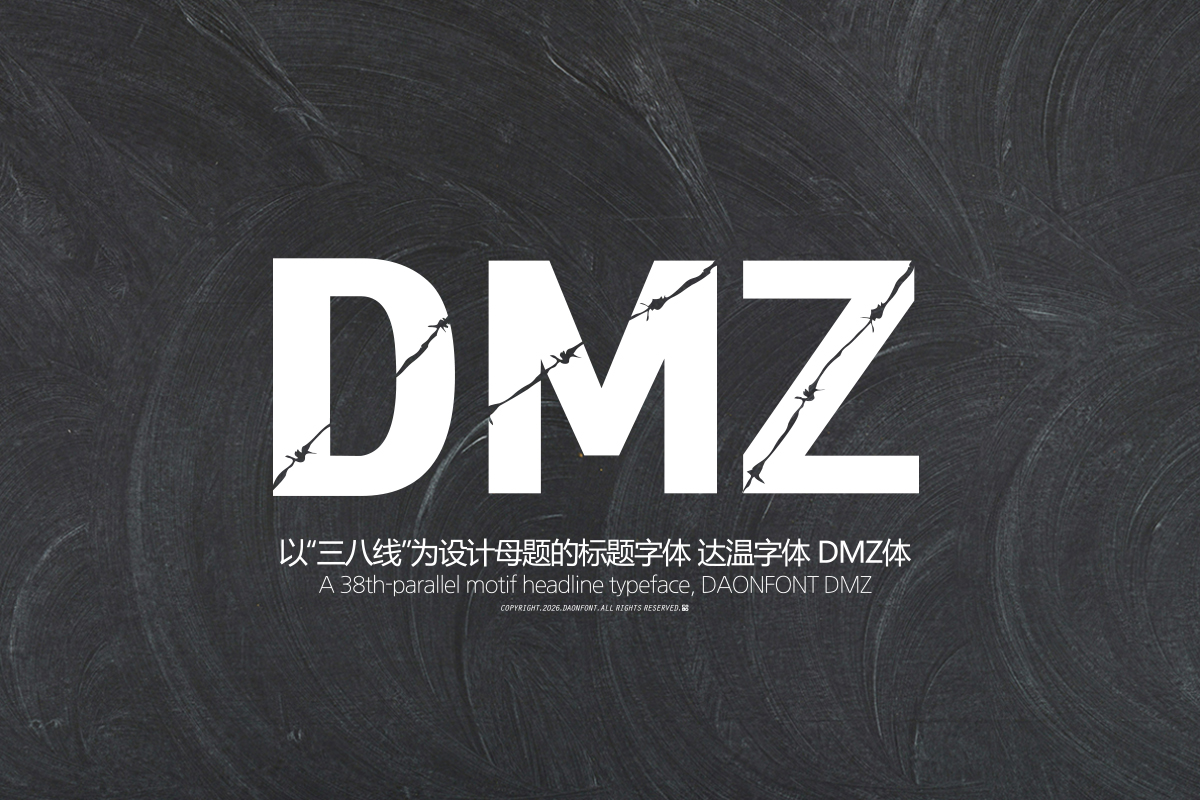
DAON DMZ
DaonFont 'DMZ' is a Hangul typeface for displays that combines bold, solid strokes with a rough texture. While based on a stable, square character structure, the addition of expressions resembling scratches and cracks inside the strokes creates a strong sense of tension and a unique atmosphere.